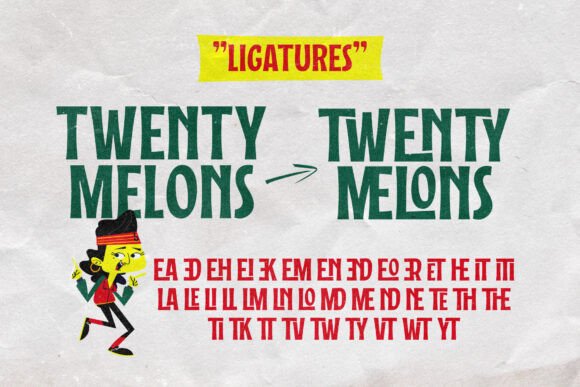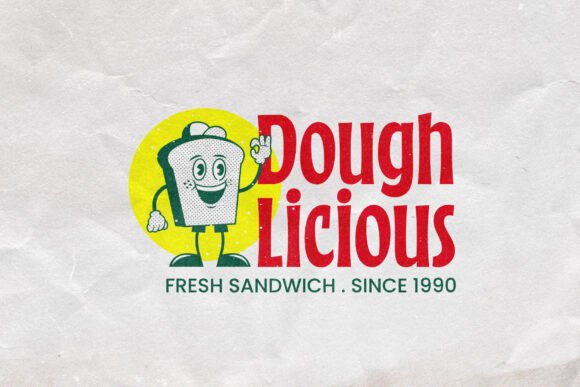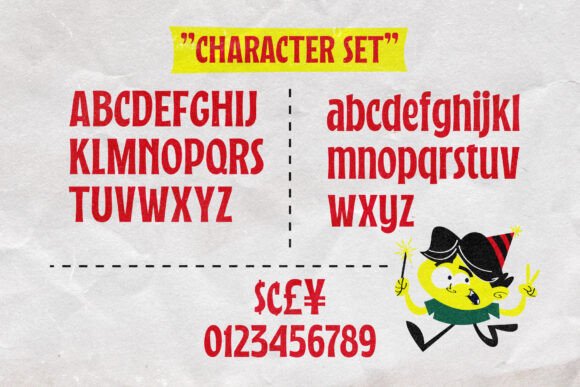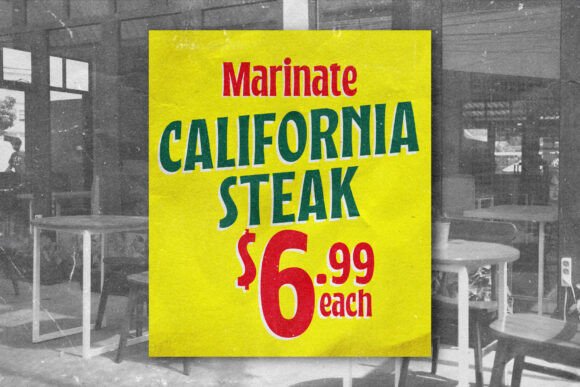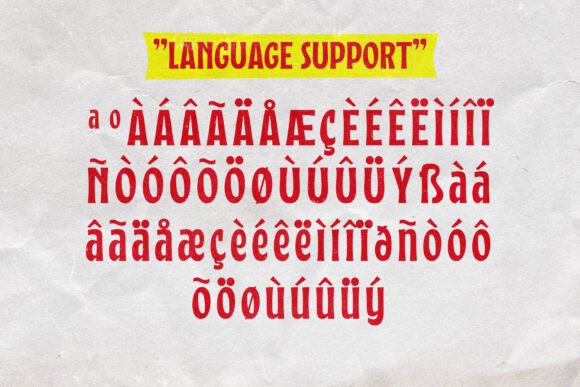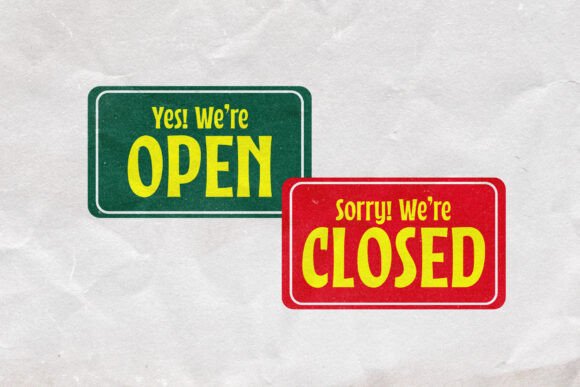
Brookvale Font: A Nostalgic Typeface with a Retro Twist
In the world of typography, fonts play a crucial role in conveying the tone and aesthetic of a design. For designers and crafters seeking a typeface that embodies the essence of the past with a modern spin, Brookvale Font is an excellent choice. This retro condensed font is designed to evoke a sense of vintage charm, making it perfect for projects that celebrate the enduring appeal of yesteryears.
What is Brookvale Font?
Brookvale – Retro Condensed Font is a carefully crafted typeface that combines the nostalgia of retro design with the sleekness of modern typography. Its condensed letterforms and retro flair make it an ideal choice for designers looking to add a dash of vintage coolness to their projects. Whether you’re working on posters, branding, or designs that require a unique and eye-catching font, Brookvale is sure to impress.
Key Features of Brookvale Font
- Retro Flair: Brookvale Font boasts a distinctive retro aesthetic that instantly adds a touch of nostalgia to any design.
- Condensed Letterforms: The font’s condensed letterforms make it perfect for designs where space is limited, such as posters, headlines, and titles.
- Contemporary Twist: While Brookvale Font is deeply rooted in retro design, it also features a contemporary twist that ensures it remains fresh and relevant.
- Vintage Charm: The font’s unique blend of retro and modern elements creates a charming and eye-catching effect that’s sure to captivate audiences.
Use Cases for Brookvale Font
Brookvale Font is an incredibly versatile typeface that can be used in a wide range of design projects. Here are some use cases where Brookvale shines:
- Posters: Add a touch of retro flair to your posters with Brookvale Font, making them stand out and grab attention.
- Branding: Use Brookvale Font to create unique and memorable brand identities that evoke a sense of nostalgia and timelessness.
- Designs: From packaging to advertising, Brookvale Font is perfect for designs that require a distinctive and eye-catching typeface.
Why Choose Brookvale Font?
With so many fonts available, why choose Brookvale Font for your design projects? Here are a few compelling reasons:
- Unique Aesthetic: Brookvale Font offers a distinctive retro aesthetic that’s hard to find in modern fonts.
- High Versatility: The font’s condensed letterforms and retro flair make it suitable for a wide range of design projects.
- Easy to Read: Despite its condensed nature, Brookvale Font remains highly legible, making it perfect for designs where clarity is essential.
Tips for Using Brookvale Font
To get the most out of Brookvale Font, here are some tips to keep in mind:
- Pair with Modern Fonts: Combine Brookvale Font with modern fonts to create a striking contrast that adds visual interest to your design.
- Experiment with Colors: Brookvale Font looks great in bold, bright colors that enhance its retro aesthetic.
- Use for Headlines: The font’s condensed letterforms make it perfect for headlines and titles, where space is often limited.
Brookvale – Retro Condensed Font is a unique and captivating typeface that brings a touch of nostalgia to any design project. Its condensed letterforms, retro flair, and contemporary twist make it an ideal choice for designers and crafters seeking a font that embodies the essence of the past with a modern spin. Whether you’re working on posters, branding, or designs that celebrate the enduring appeal of yesteryears, Brookvale Font is sure to impress. So why not give Brookvale Font a try and add a dash of retro coolness to your next design project?